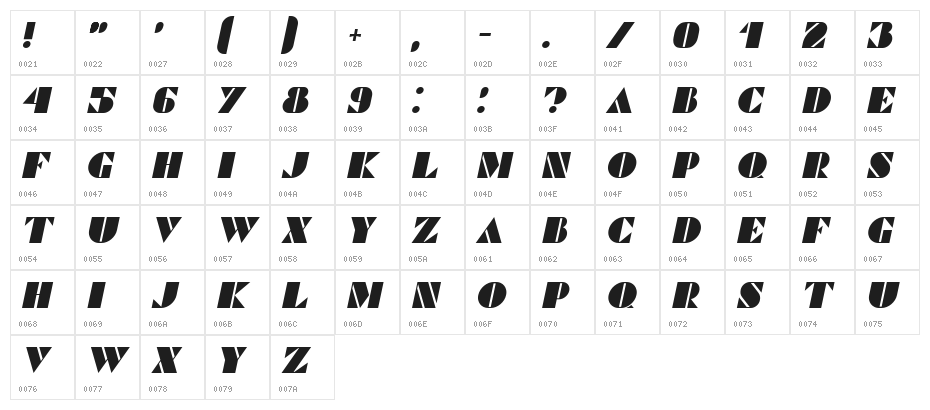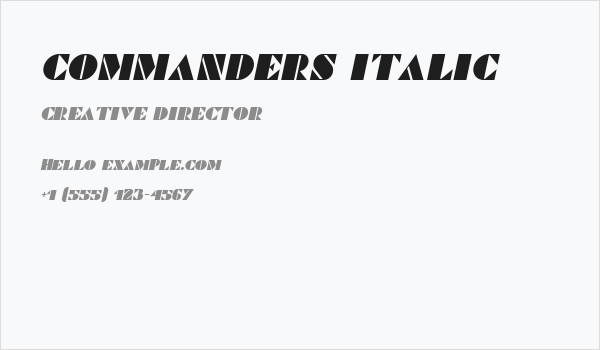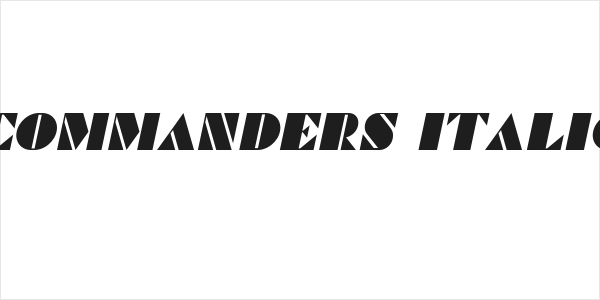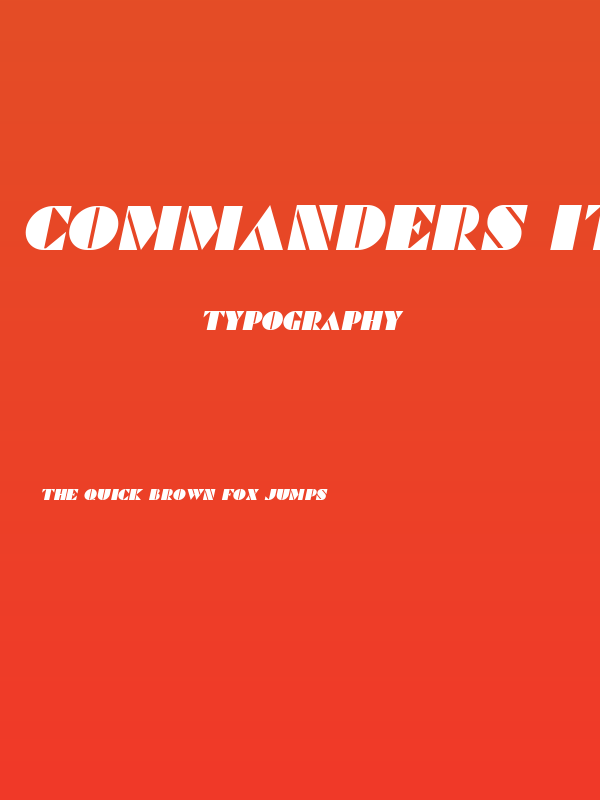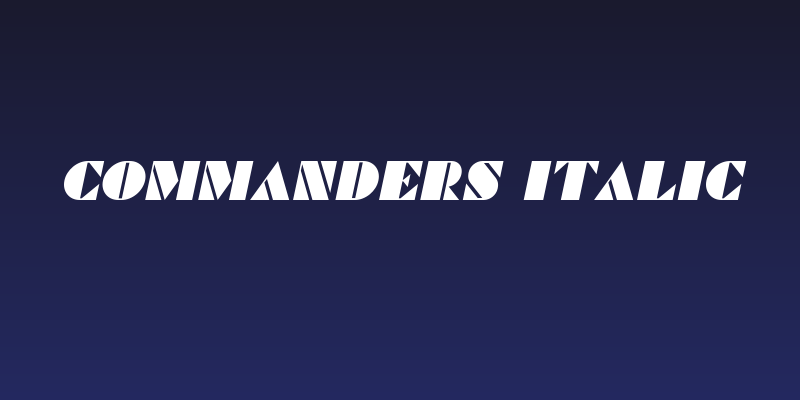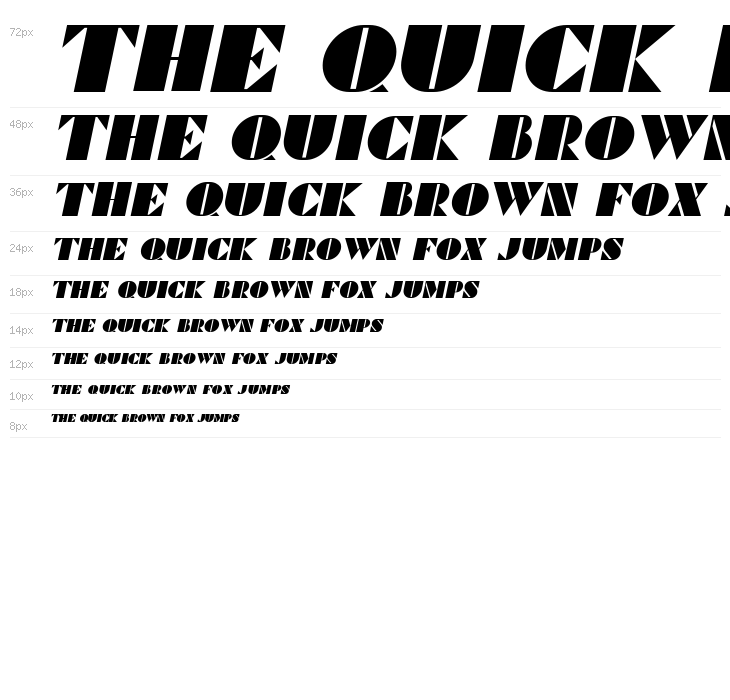
Commanders Italic Font
Commanders Italic Description
This font features a bold and dynamic style with a distinct italic slant, giving it a sense of movement and urgency. The characters are thick and robust, with sharp angles and a geometric design that conveys strength and modernity. The uppercase letters are particularly striking, with a wide stance and a commanding presence. The numbers and special characters maintain the same boldness and angularity, ensuring consistency across all elements. This font is ideal for making a strong visual impact, whether in print or digital media.
| Proposed Projects | Ideal for headlines, posters, branding, and any project requiring a strong, impactful typeface. |